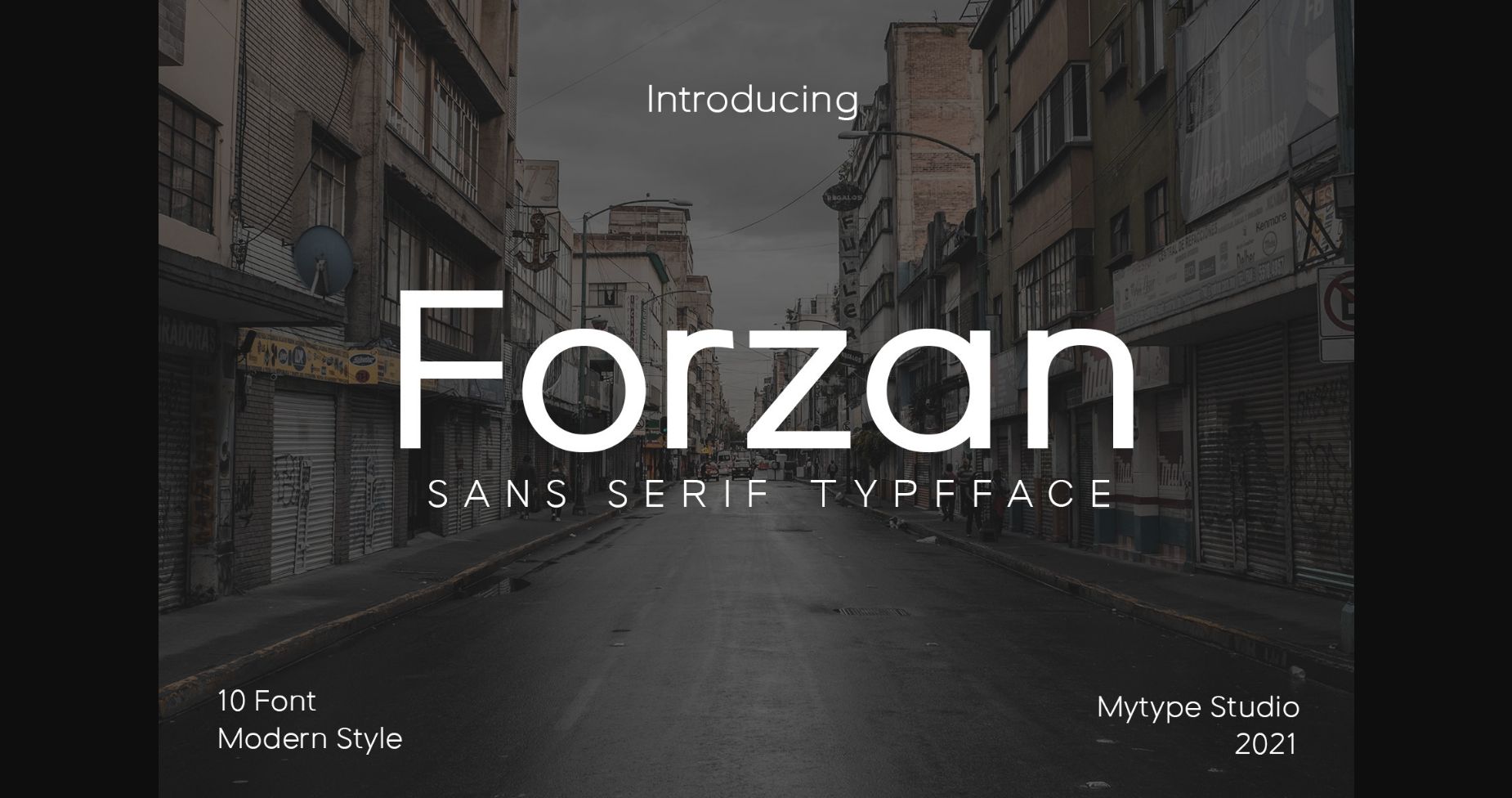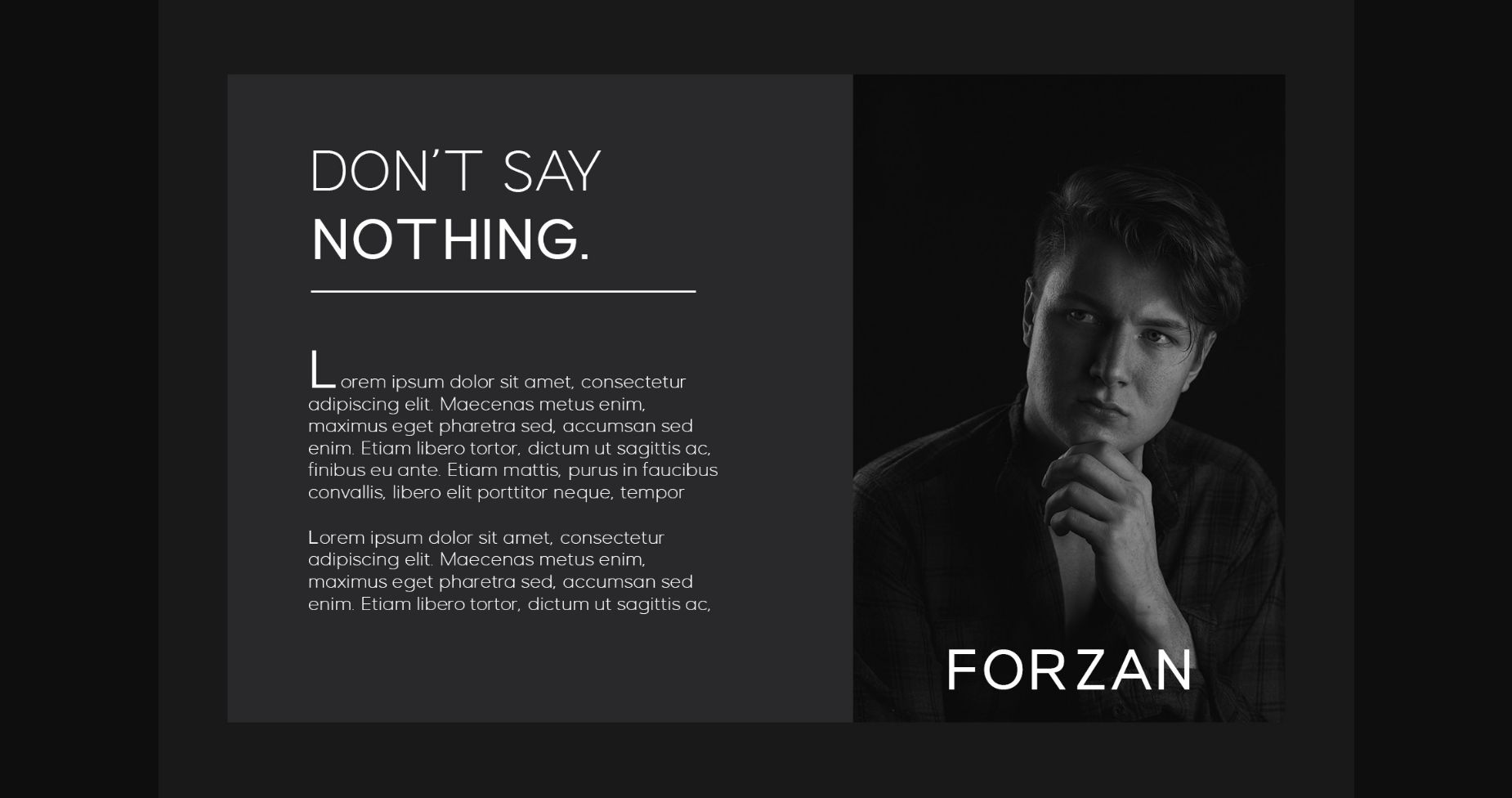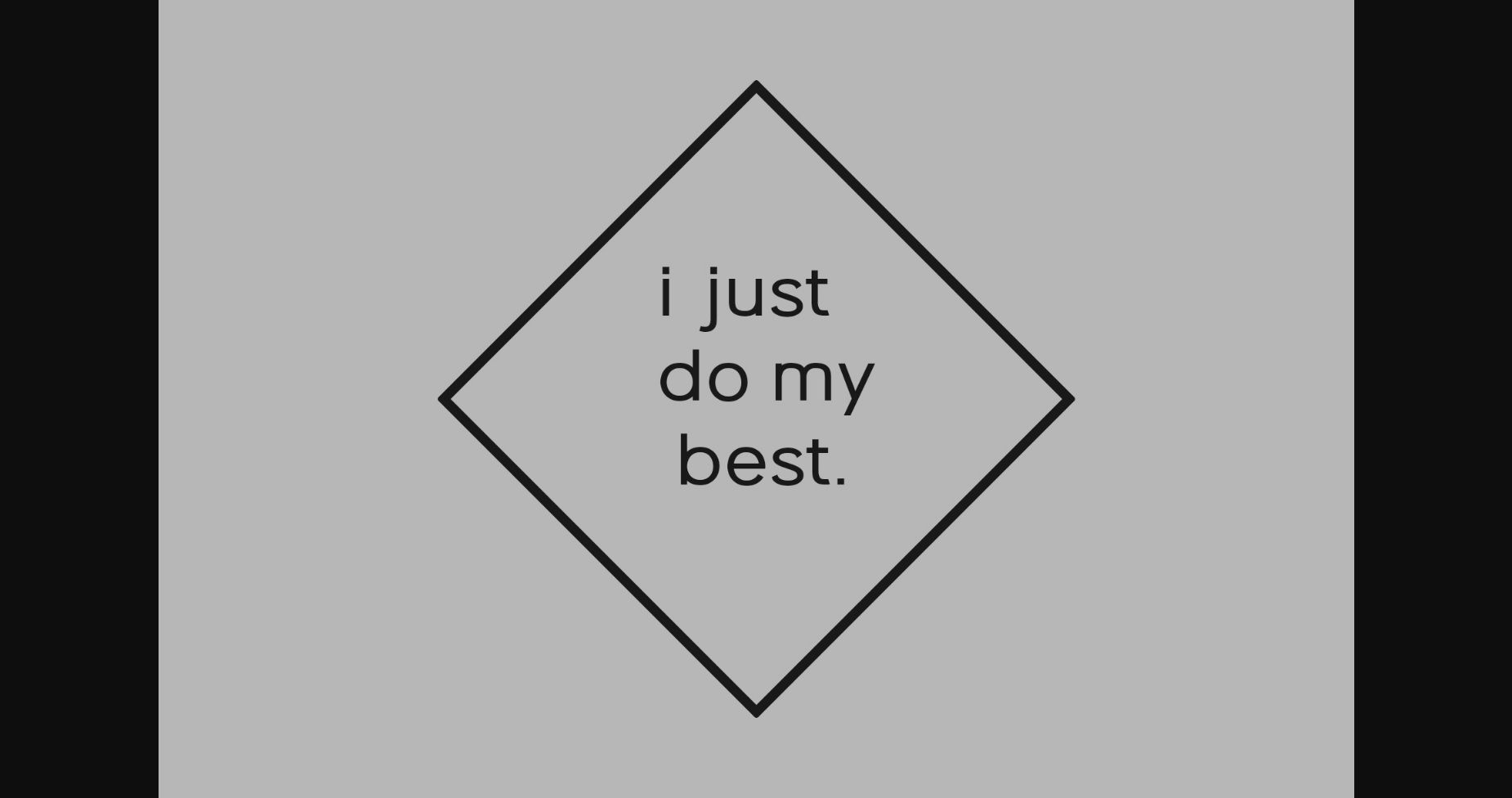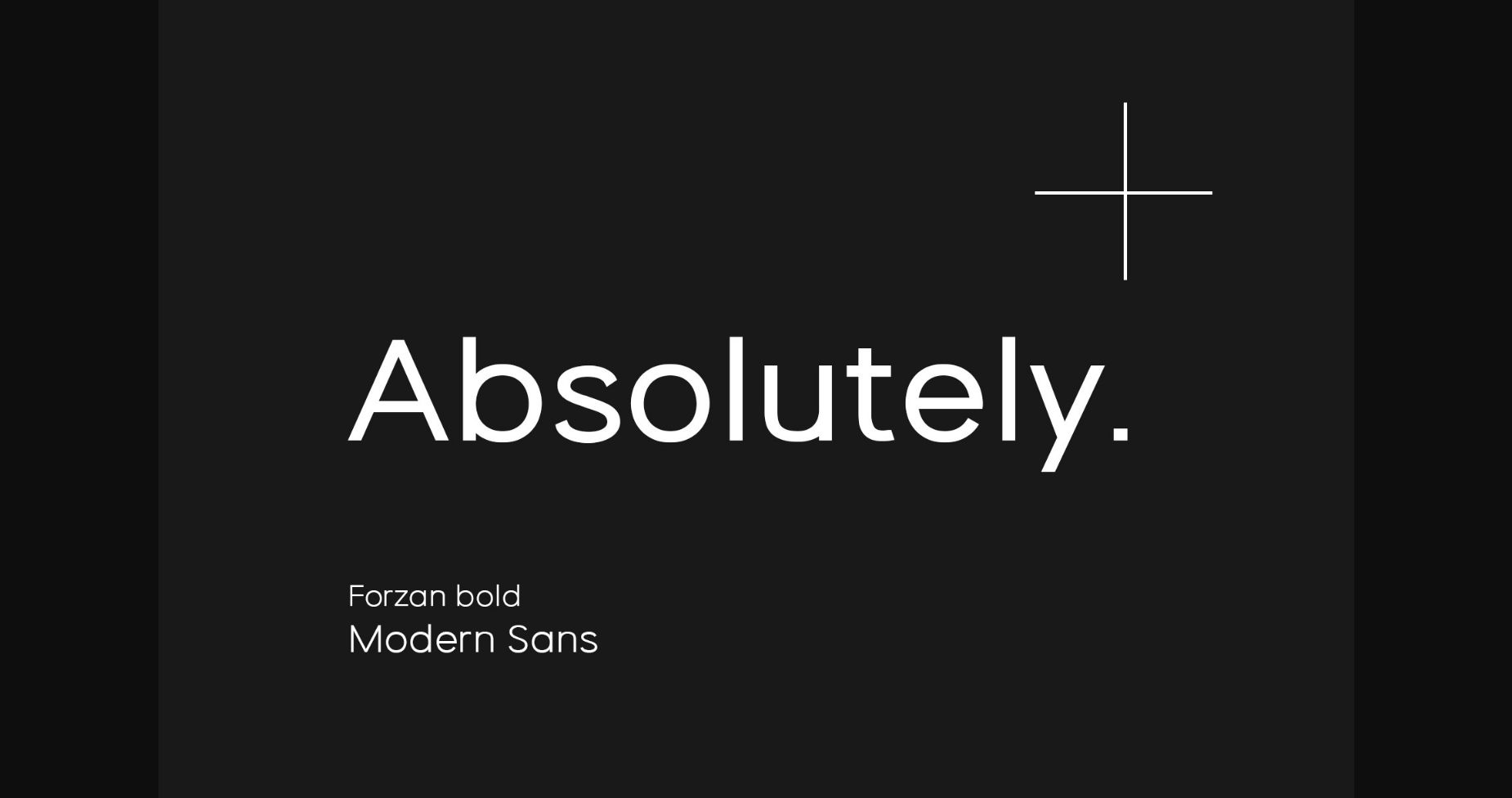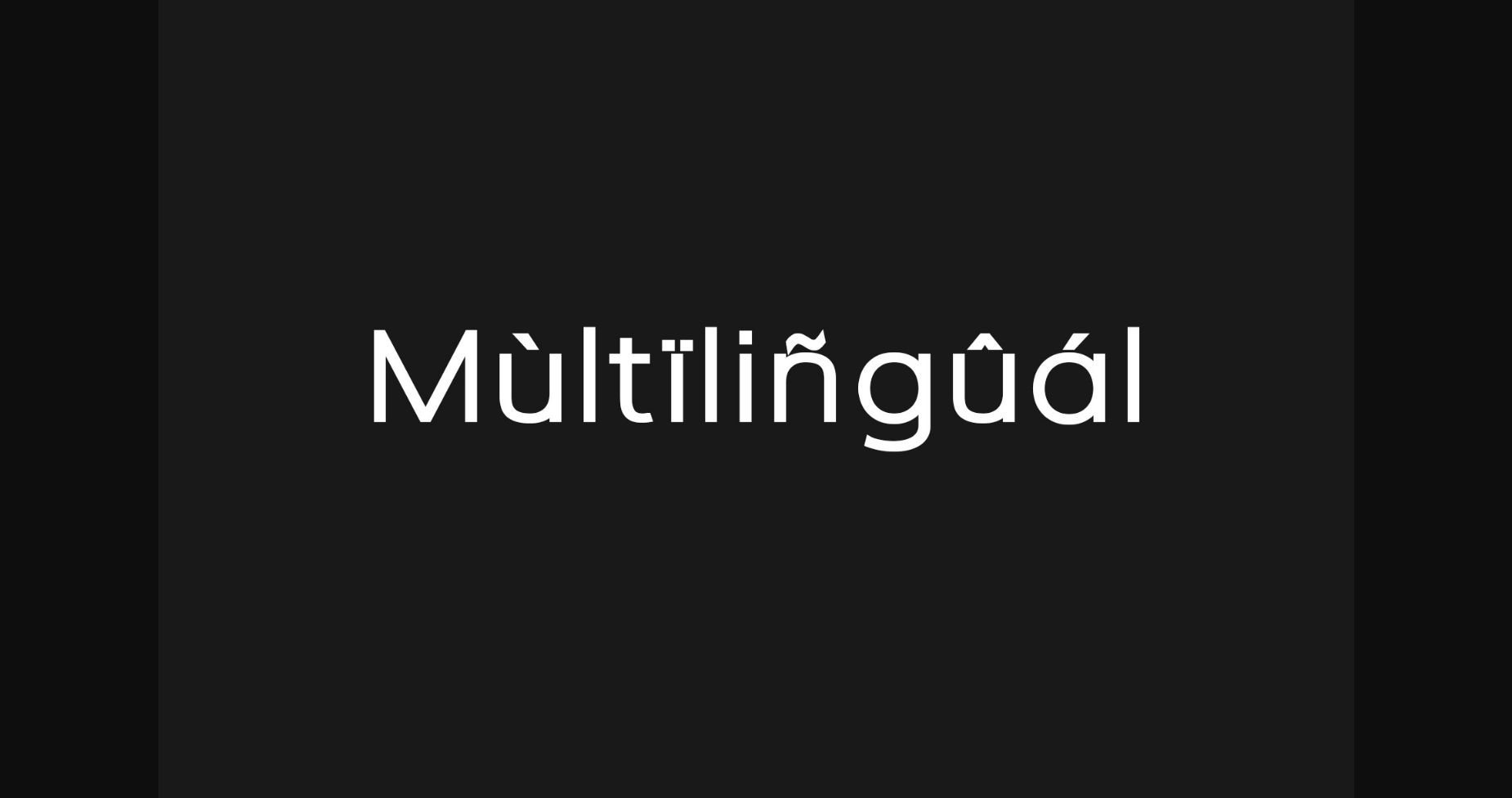
About Forzan Font
Forzan is an elegant and thin lettered sans serif font. It can easily be matched to an incredibly large set of projects, so add it to your creative ideas and notice how it makes them stand out!